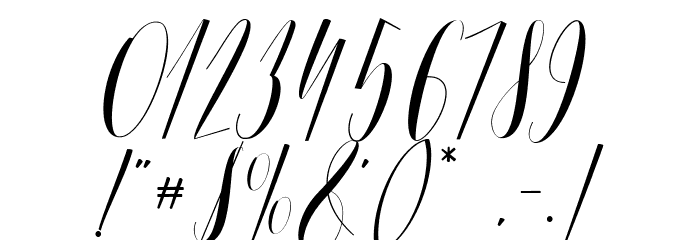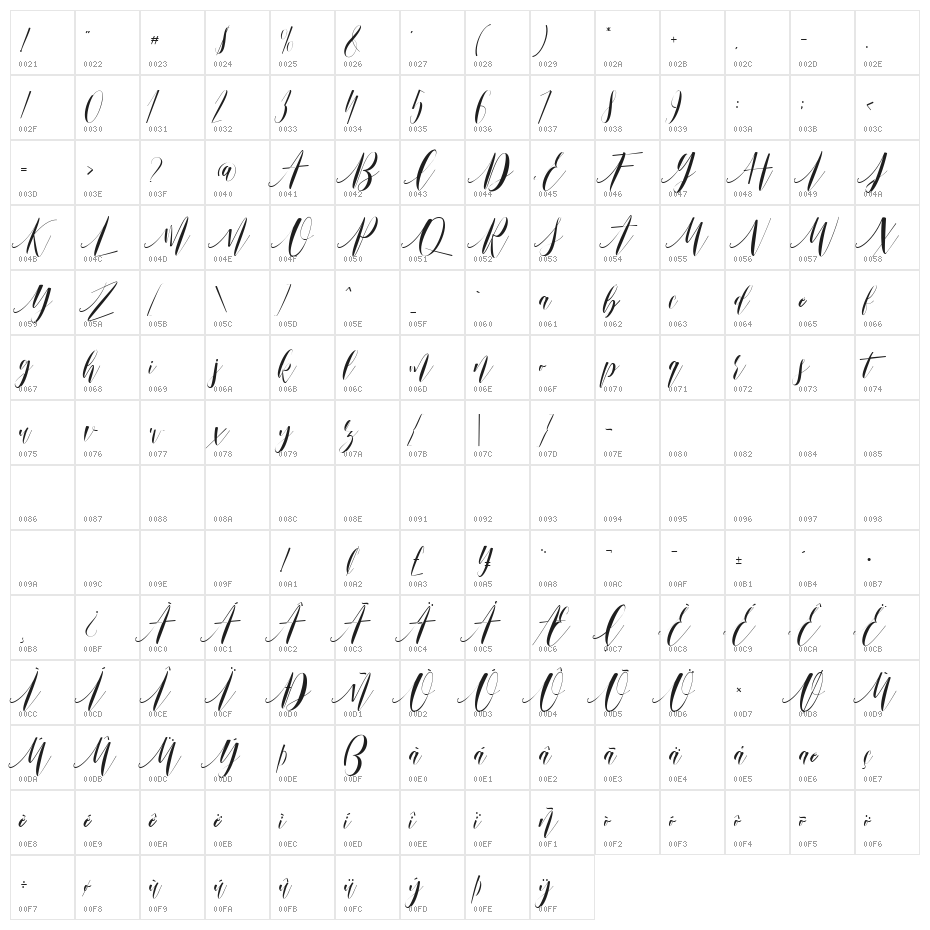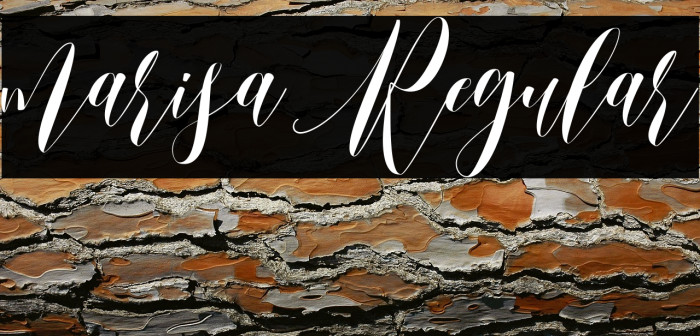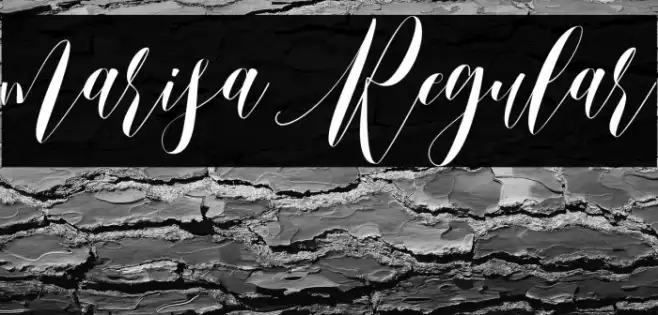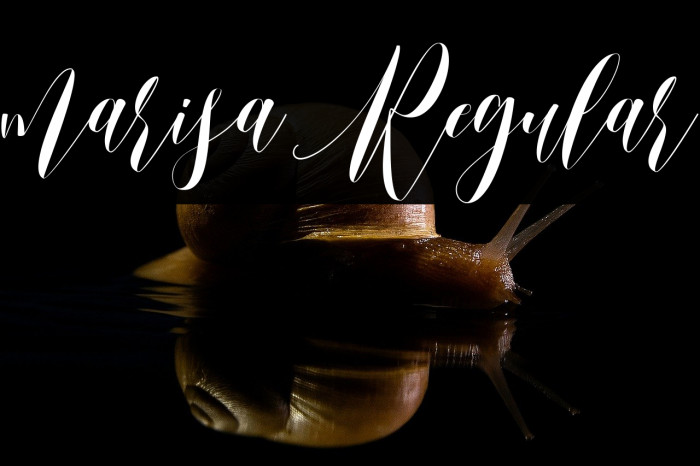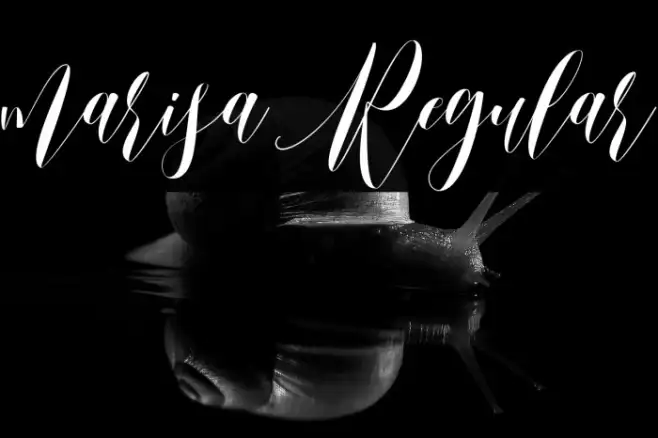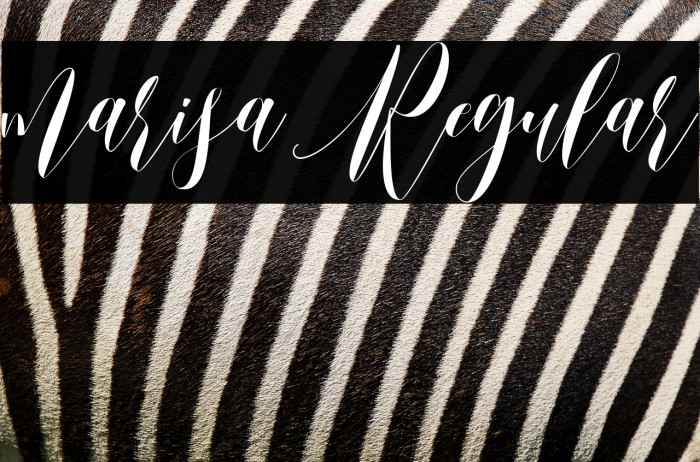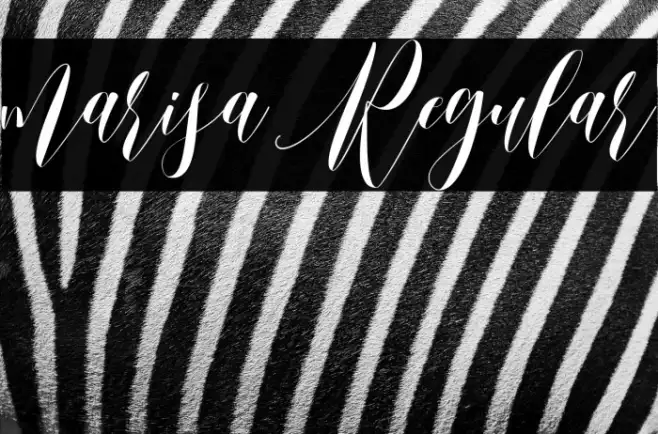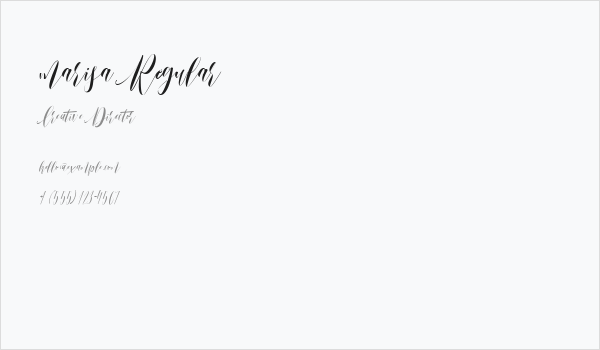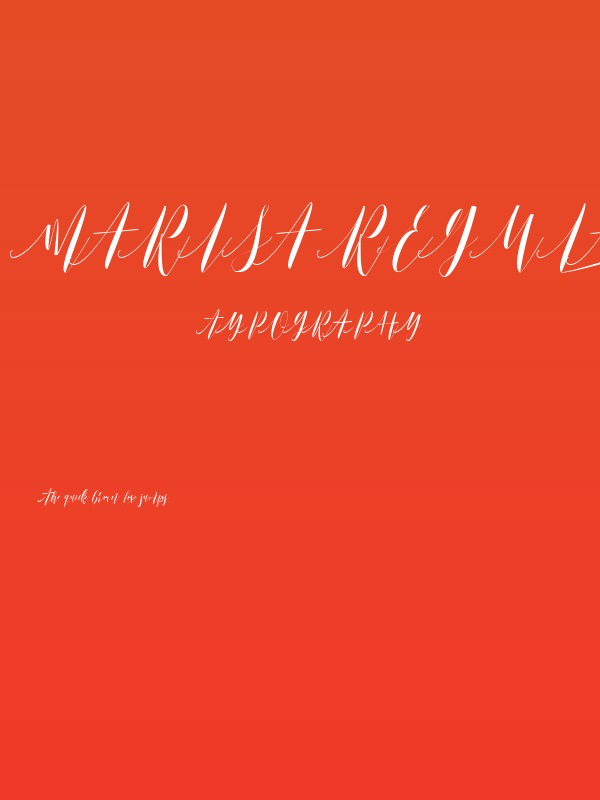
This font exudes elegance and sophistication with its fluid, cursive style. The characters are gracefully connected, creating a seamless flow that is both artistic and refined. The strokes vary in thickness, adding a dynamic contrast that enhances readability while maintaining a stylish appearance. The uppercase letters are tall and slender, giving an impression of height and grace, while the lowercase letters are more rounded and compact, offering a balanced aesthetic. The numerals and special characters are designed with the same attention to detail, ensuring consistency throughout the font. This script font is perfect for adding a touch of elegance to any project.
| Proposed Projects | Ideal for wedding invitations, elegant branding, personal stationery, and high-end product packaging. |